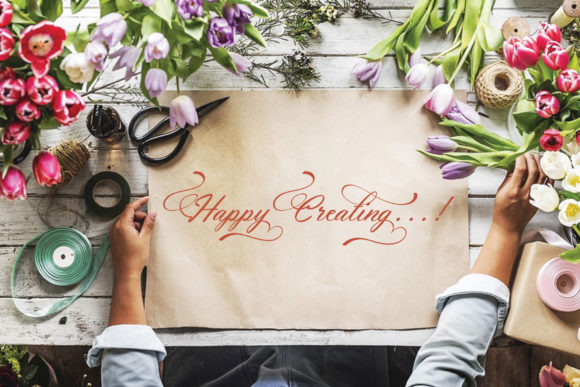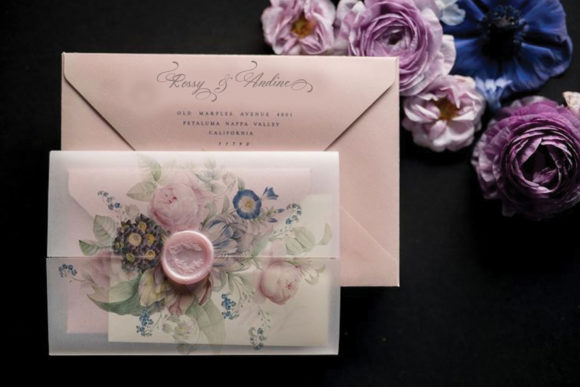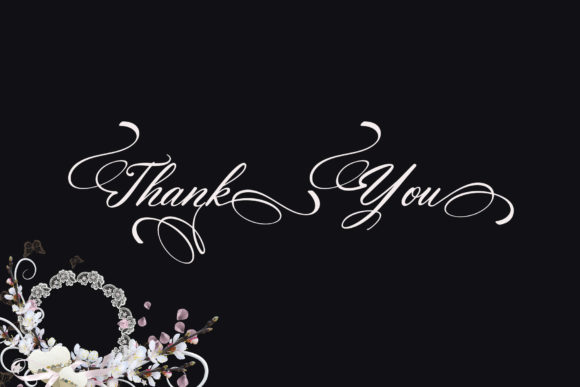
Introduction to Arthevas Font
As a designer, there’s nothing quite like the thrill of bringing a creative project to life. The moment you stumble upon the perfect font – one that elevates your design and speaks to your audience – is pure magic. For those who’ve been searching for a modern calligraphy font that exudes elegance and sophistication, look no further than the Arthevas Font.
With its stunning handwritten look and beautiful swashes, the Arthevas Font is a game-changer for designers. Whether you’re crafting a wedding invitation, creating a logo, or simply want to add a touch of personality to your newsletter, this high-quality font is the perfect design resource. And the best part? It’s available for free download, complete with a transparent background that allows for seamless integration into your design.
Key Features of Arthevas Font
- High-quality design resource ideal for creative projects, offering a unique and stylish touch.
- Supports various languages, ensuring its versatility in a wide range of creative projects.
Honest Review: Arthevas Font
I recently had the chance to work with the Arthevas Font, and I must say it’s been a great addition to my design resource library. The free download was a pleasant surprise, and I was eager to see how it would perform in my creative project.
- ✨ High quality design: The font has a clean and elegant aesthetic that’s perfect for a wide range of projects.
- ✨ Versatility: The font comes in a variety of styles and weights, making it easy to customize to fit your specific needs.
- ⚠️ Limited language support: The font only supports a handful of languages, which may be a issue for projects that require multilingual support.
Overall, I’m impressed with the Arthevas Font. While it may have some limitations, its high quality design and versatility make it a valuable addition to any design resource library. If you’re looking for a reliable and stylish font, I’d definitely recommend giving it a try.
The Arthevas Font is suitable for various design projects, including branding, marketing materials, and creative presentations. Its unique design and high-quality features make it an excellent addition to any design resource collection.